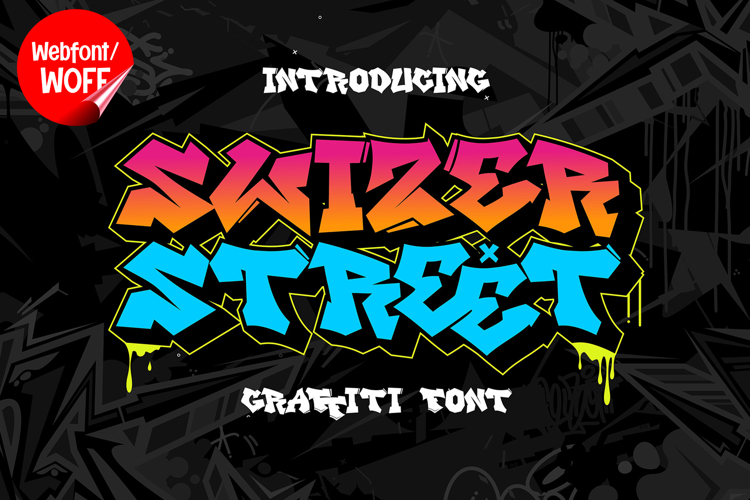
Swizer Street | 3D Layered Graffiti Webfont for Urban Impact
Swizer Street is a 3D layered graffiti webfont designed to bring bold depth and strong street character into modern website design. Inspired by classic graffiti lettering with a contemporary twist, this font features thick structures combined with layered dimension, creating a powerful and eye-catching visual presence. It is an excellent choice for projects that need a strong urban identity and expressive typography.
Swizer Street includes a complete set of uppercase characters designed with bold graffiti forms and layered 3D effects. Each letter is constructed with depth and shadow-like layers, giving the text a sense of volume and movement. These letterforms are ideal for headlines, banners, hero sections, and featured content where a bold and attention-grabbing style is required.
In addition to letters, the font includes numbers and punctuation, allowing flexible usage across various parts of a website. It works well for promotional text, event announcements, pricing displays, and navigation highlights. Each character maintains a consistent layered graffiti style, ensuring a cohesive and unified visual identity throughout the layout.
With multilingual support, Swizer Street includes a wide range of accented characters, making it suitable for international websites and global audiences. This allows content to be displayed clearly across different languages while preserving the bold graffiti aesthetic.
The 3D layered graffiti style of Swizer Street makes it especially suitable for urban-themed websites, streetwear brands, music platforms, gaming interfaces, and creative portfolios. Its dimensional design adds depth and energy, helping layouts feel more dynamic and engaging. The graffiti influence brings authenticity and a strong street-inspired tone to the overall design.
Despite its bold and layered appearance, Swizer Street is designed with readability in mind. The spacing and structure of each character are carefully balanced to ensure clarity, particularly in display sizes. This makes it effective for impactful headings and short content elements where both style and legibility are important.
Swizer Street is a webfont that combines graffiti aesthetics with dimensional design and modern digital performance. Its bold shapes, layered depth, and urban energy create a distinctive typographic presence that enhances website design. For projects that require strong visual impact, creative expression, and a modern street-inspired identity, Swizer Street offers a powerful and engaging solution.